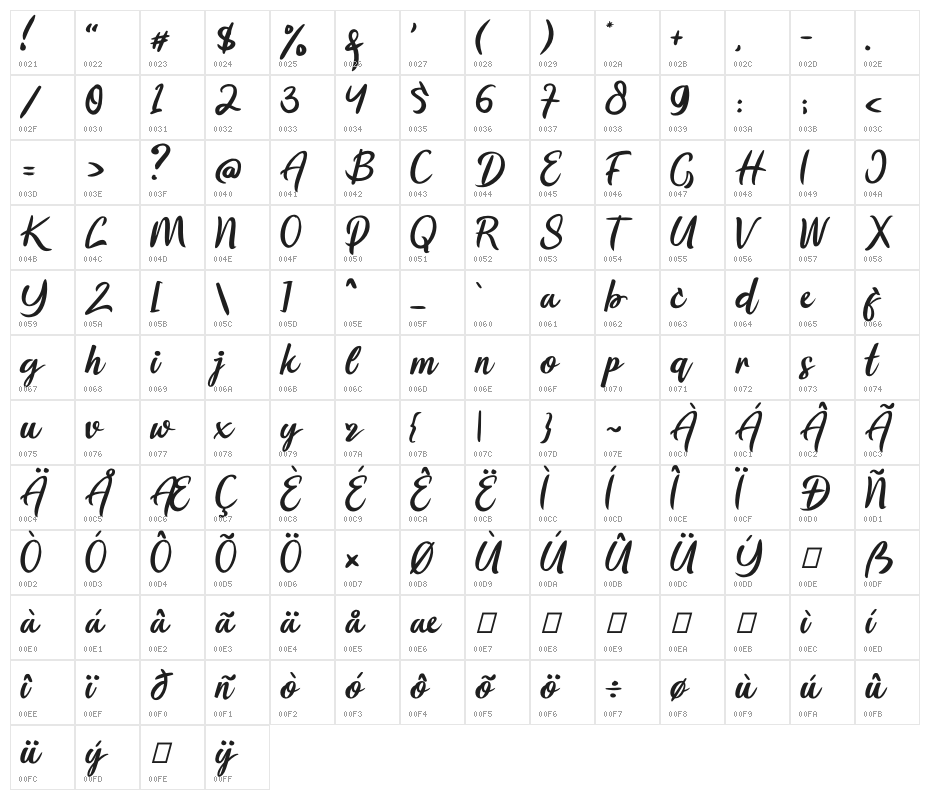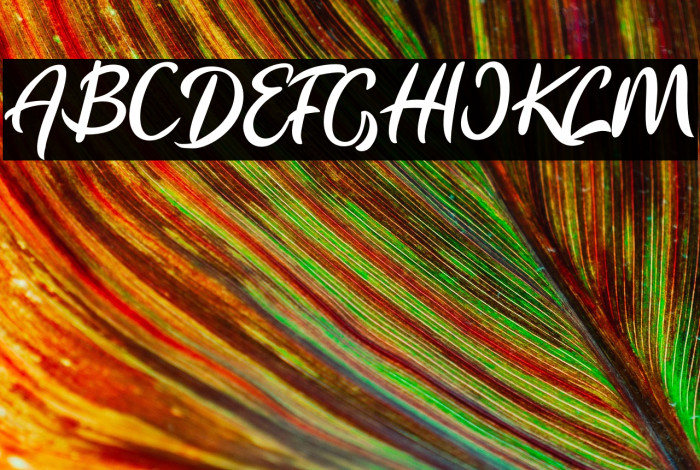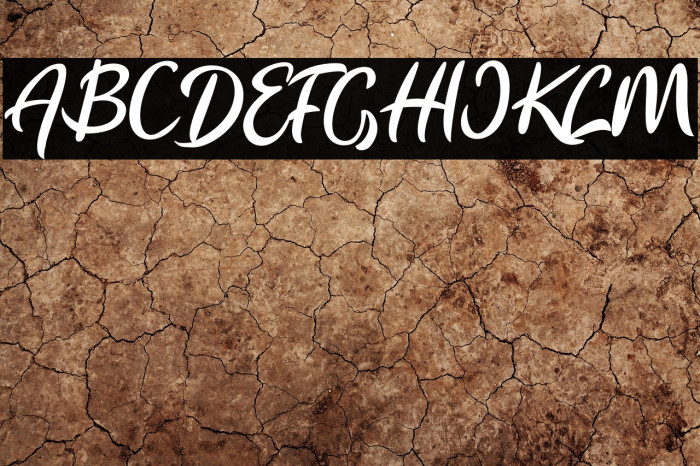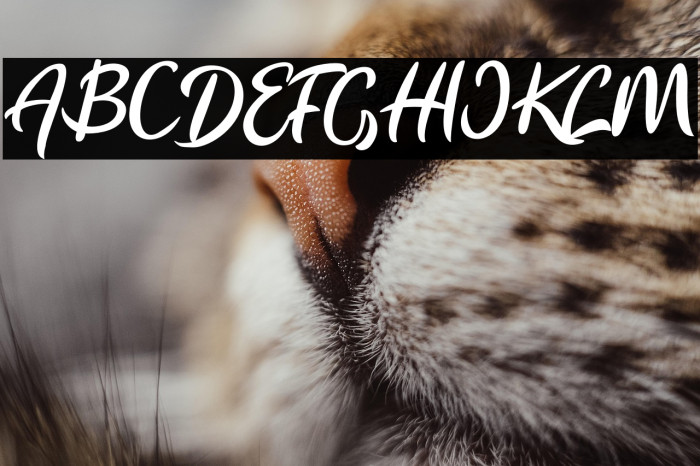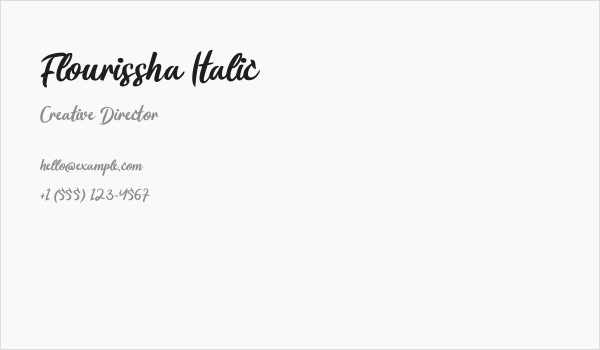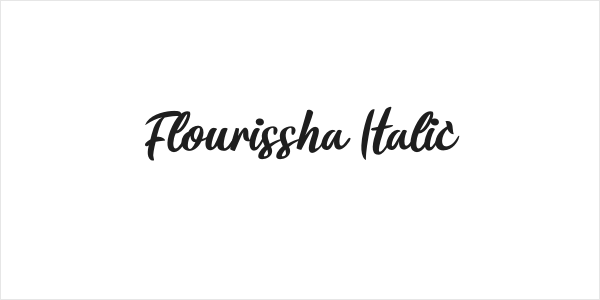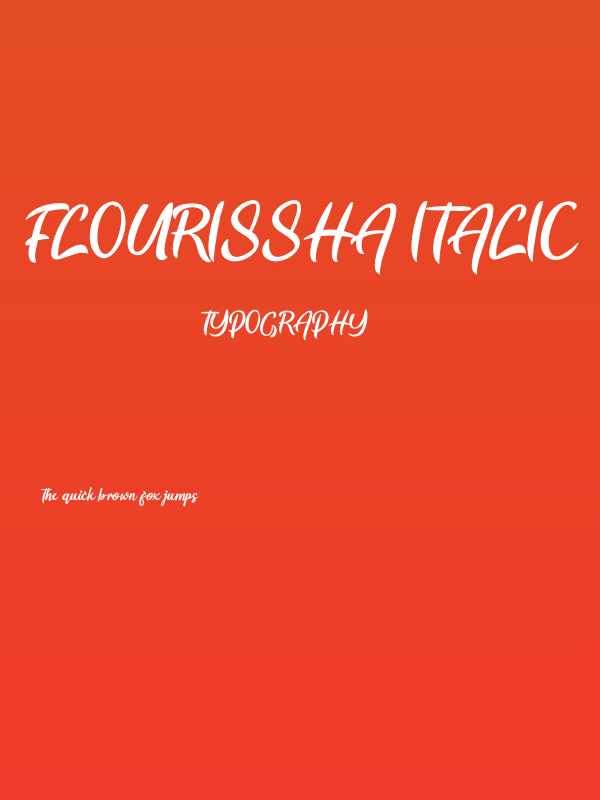
Flourissha Italic Font
Flourissha Italic Description
This font features a flowing, cursive style with elegant, sweeping strokes that give it a dynamic and lively appearance. The characters are connected, creating a seamless and fluid look that is both sophisticated and approachable. The uppercase letters are bold and prominent, while the lowercase letters maintain a consistent flow, enhancing readability. The numerals and special characters are designed to match the overall aesthetic, providing a cohesive look across all elements. The italic nature of the font adds a sense of movement and grace, making it suitable for creative and expressive projects.
Use CaseLogos, Invitations, Greeting Cards
Proposed ProjectsIdeal for wedding invitations, greeting cards, logos, and branding materials that require a touch of elegance and personality.